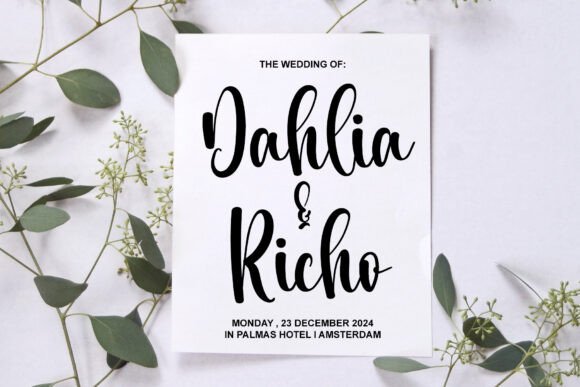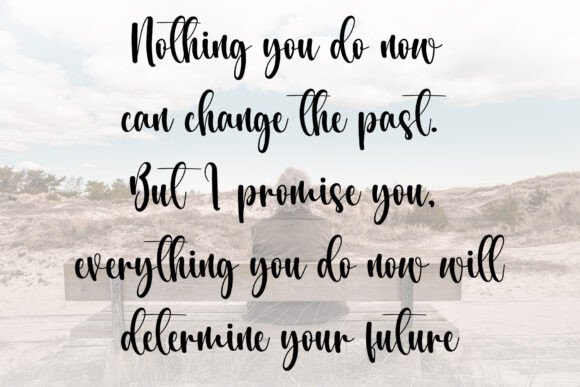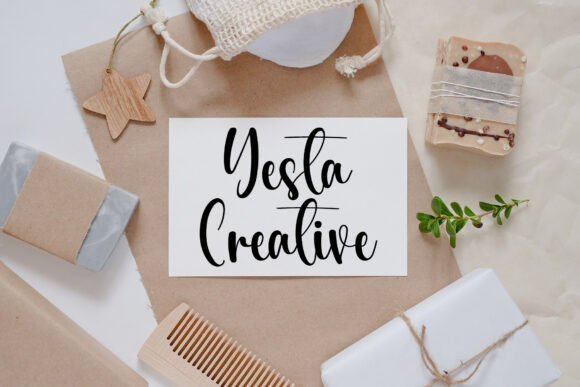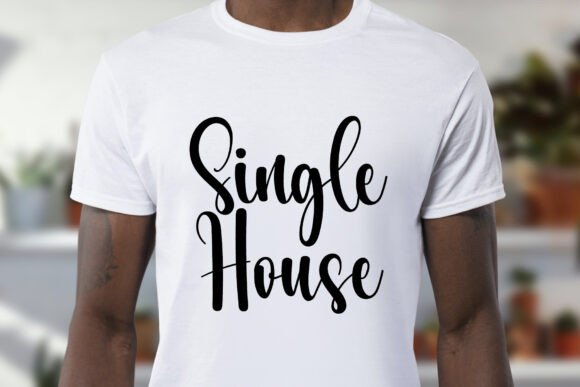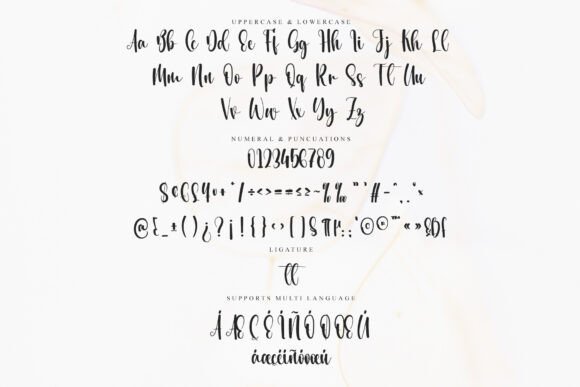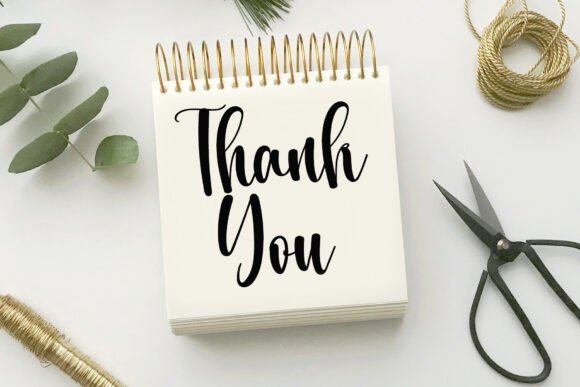
The Designer’s Delight: A Deep Dive into the Brilliant Font
I’ll never forget the time I was working on a greeting card project for a client, and I just couldn’t seem to find the right font. I wanted something that would add a touch of warmth and personality to the design, but everything I tried felt either too generic or too over-the-top. That’s when I stumbled upon the Brilliant font, and let me tell you, it was love at first sight! 💕
Brilliant is a stylish and modern handwritten font that’s suitable for a wide spectrum of applications. From greeting cards to headlines, branding, and packaging, this font is guaranteed to add a happiness touch to each of your creations. And the best part? It’s PUA encoded, which means you can access all of the amazing glyphs and ligatures with ease!
- ✨ The unique and stylish handwritten design that’s perfect for adding a touch of personality to any project
- ✅ The font’s versatility – it works beautifully for both digital and print applications
- 💫 The ease of use – with PUA encoding, you can access all the glyphs and ligatures without any hassle
- 🔥 The font’s ability to evoke a sense of happiness and warmth, making it perfect for projects that require a friendly tone
While Brilliant is an amazing font, there are a few things to keep in mind. For example, ⚠️ some of the glyphs and ligatures can be a bit finicky to access if you’re not familiar with OpenType features. Additionally, 🤔 the font may not work as well for very small text sizes or for projects that require a more formal tone.
The Designer Behind Brilliant
While the designer behind Brilliant remains a bit of a mystery, it’s clear that they were inspired by the beauty of handwritten typography. With its unique and stylish design, Brilliant is the perfect font for anyone looking to add a touch of personality to their projects.
Q: Is Brilliant suitable for body text?
A: While Brilliant is a beautiful font, it’s best suited for headlines, titles, and short paragraphs. For longer body text, you may want to consider a more traditional font.